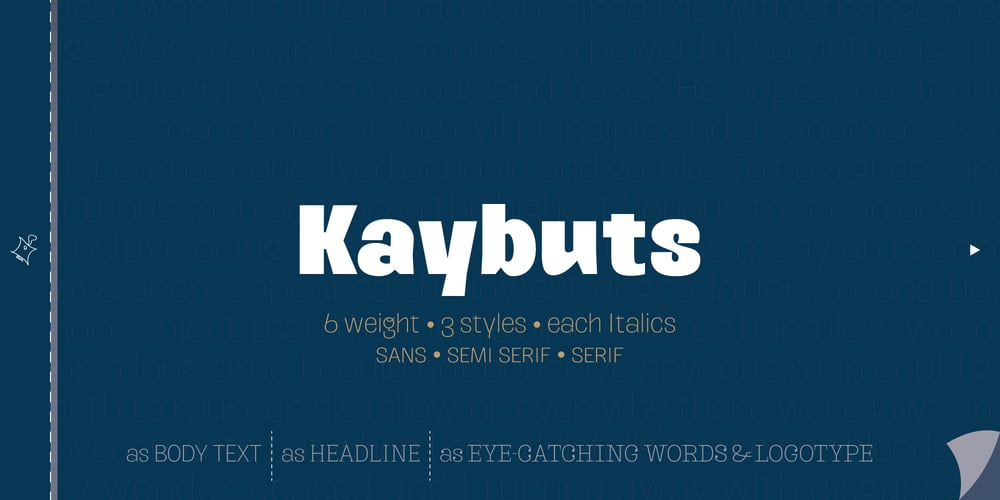
Kaybuts Font Family was designed by Shuji Kikuchi and published by sugargliderz. Kaybuts contains 36 styles and family package options. Kaybuts consists of three styles: sans-serif, serif, and semi-serif, each of which includes italic typefaces. Thinner and thicker weights look best when handled in relatively large font sizes, such as eye catchers and headlines. The middle weight is best suited for smaller text. Incidentally, this typeface was designed under the influence of, or with Mary Shelley’s novel Frankenstein: or The Modern Prometheus in mind.